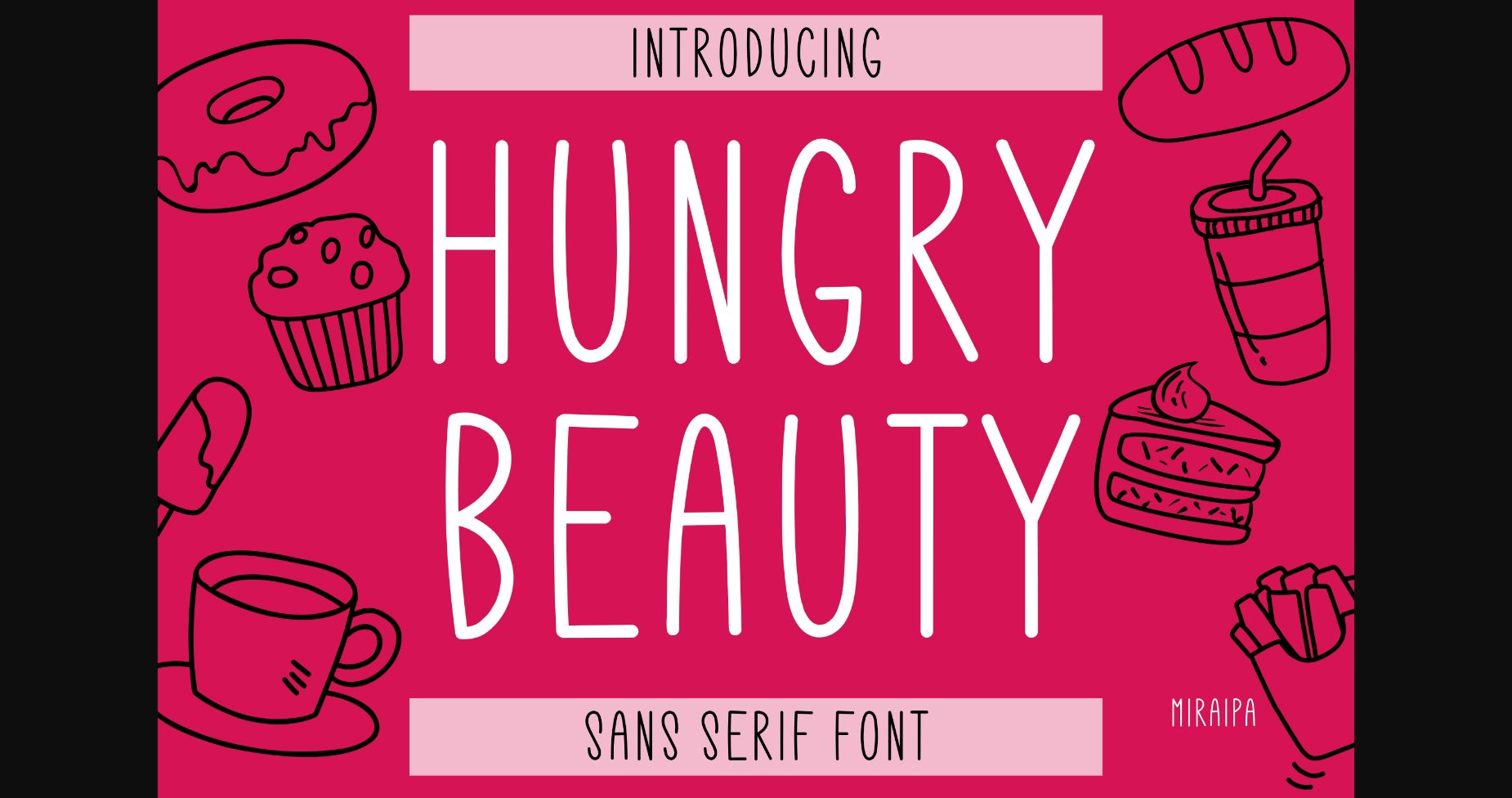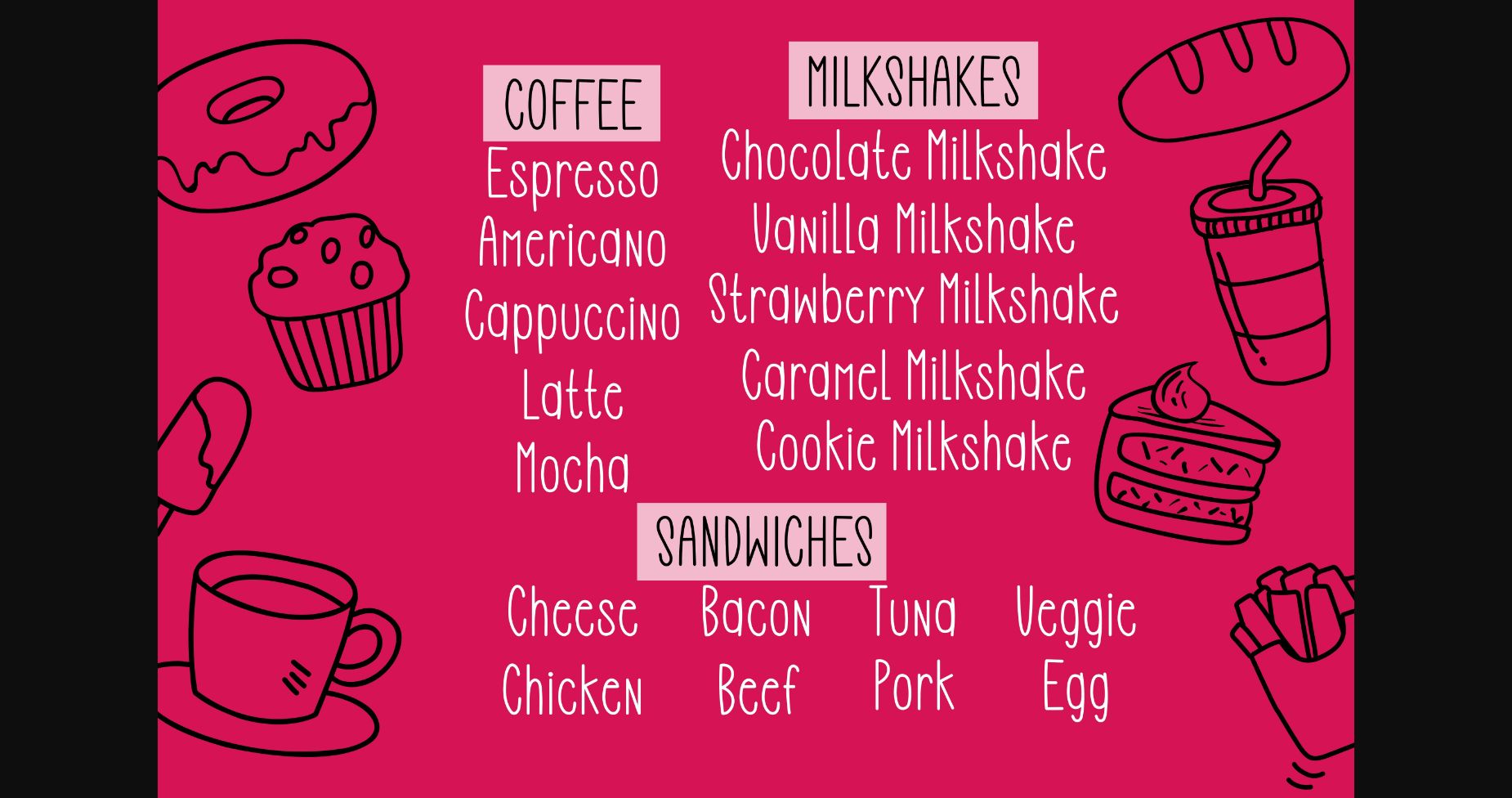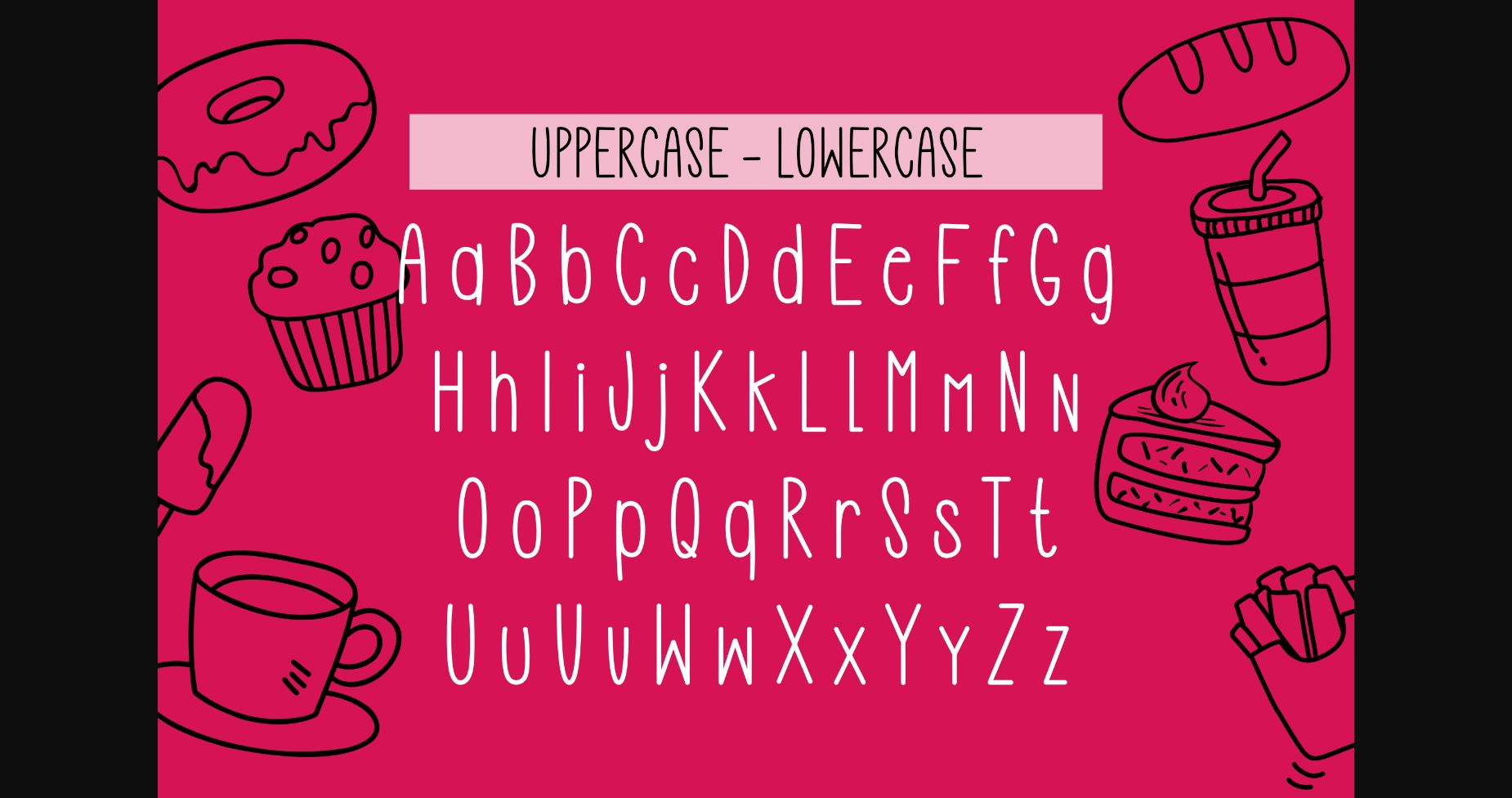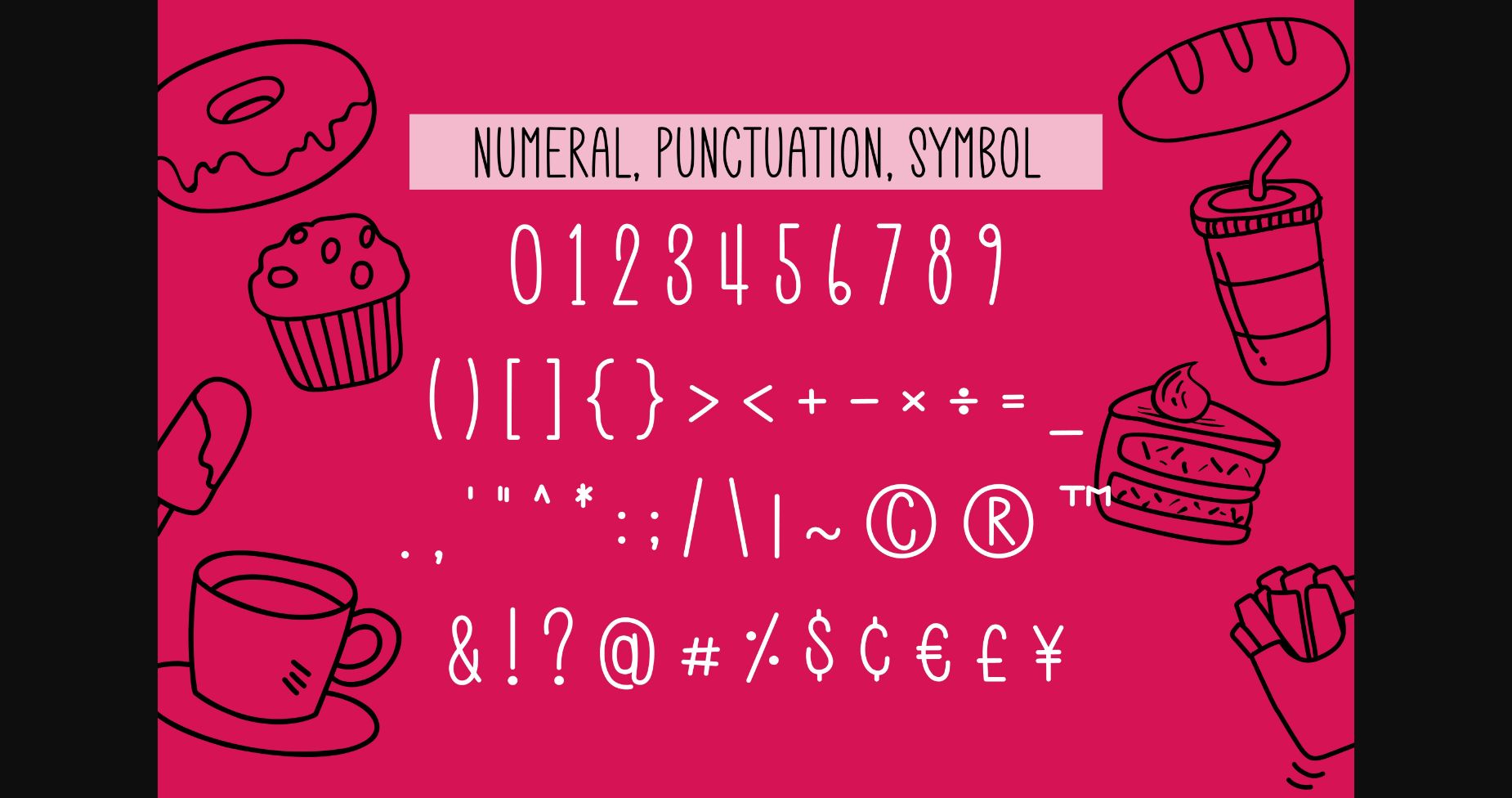
About Hungry Beauty Font
Hungry Beauty is a modern and attractive sans-serif font. Ideal for contemporary design, digital media, and advertising, itβs versatile enough to be used for headlines, body copy, and branding. Its clean and simple design creates a stylish and eye-catching look, making it the perfect choice for lots of design projects.